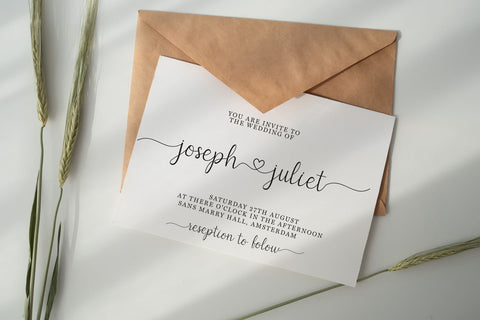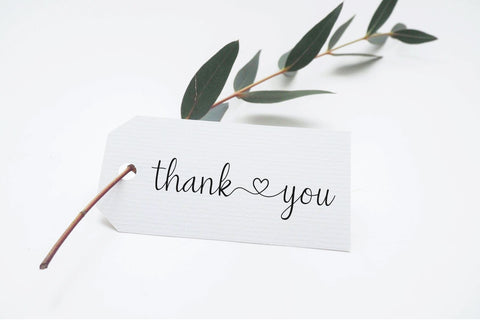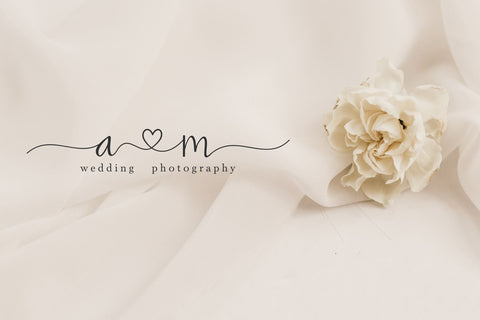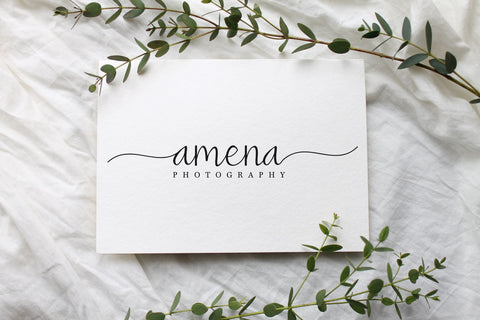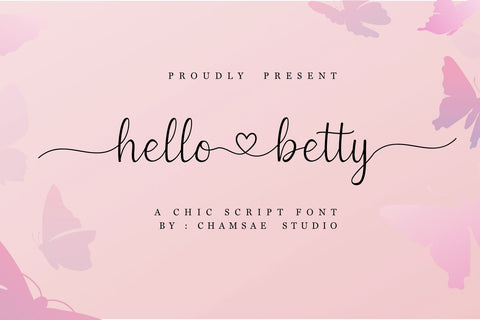
hello betty lovely font
Hello Betty is a romantic and sweet calligraphy script font. It features amazing heart-shaped swashes and is perfect for invitations, beautiful stationary art, eye-catching social media posts, and cute greeting cards.